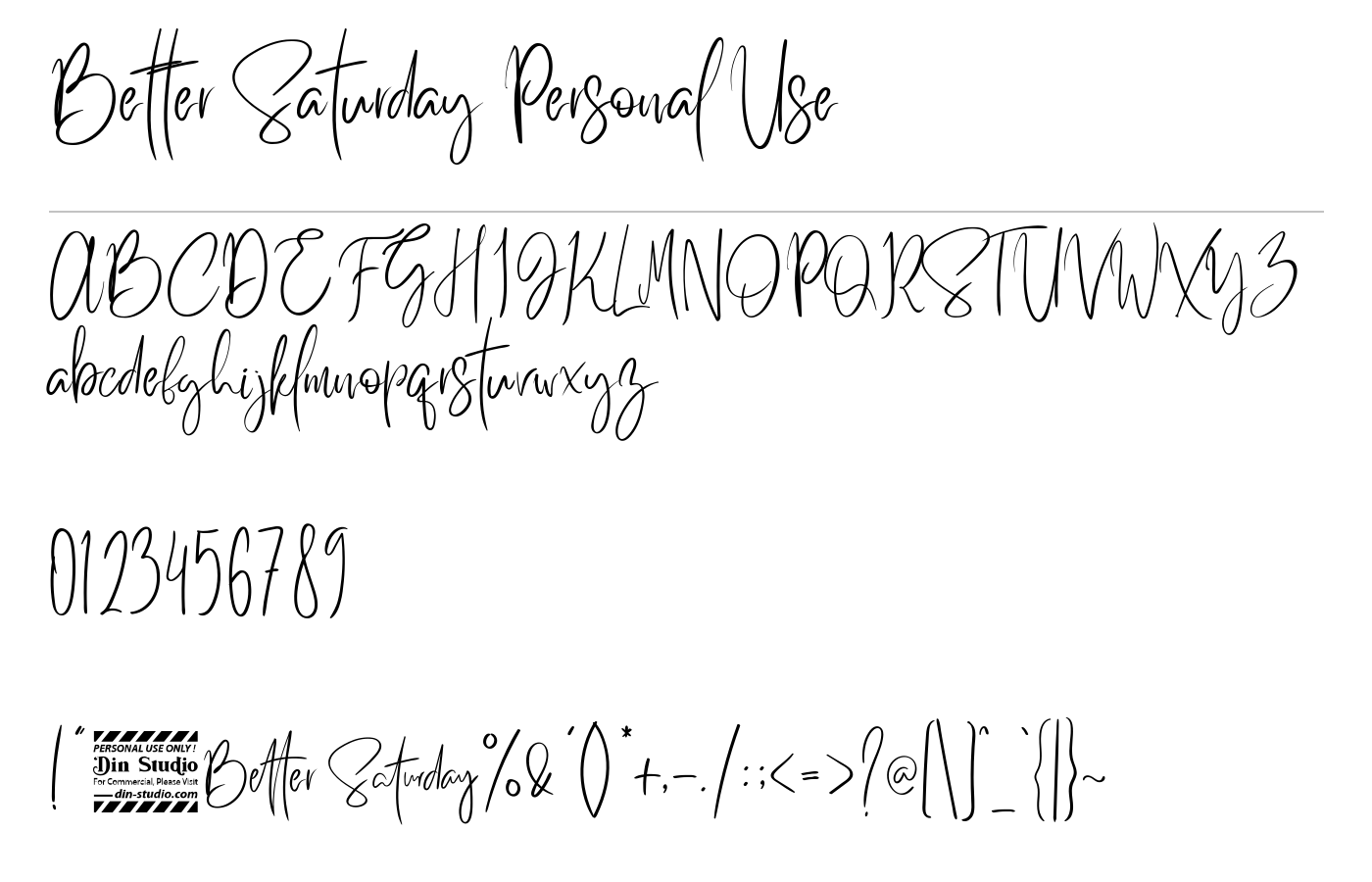
Better Saturday Personal Use is a delicate, handwritten script font characterized by its tall, slender letterforms and smooth, flowing strokes that offer a casual yet elegant feel. Its airy spacing and playful curves make it an excellent choice for personal projects, invitations, and branding that seeks a light, approachable, and stylish look. This font works beautifully in creative designs where a personal touch and contemporary charm are desired.
Better Saturday Personal Use Font
About Better Saturday Personal Use Font
| Font family | Better Saturday Personal Use Font |